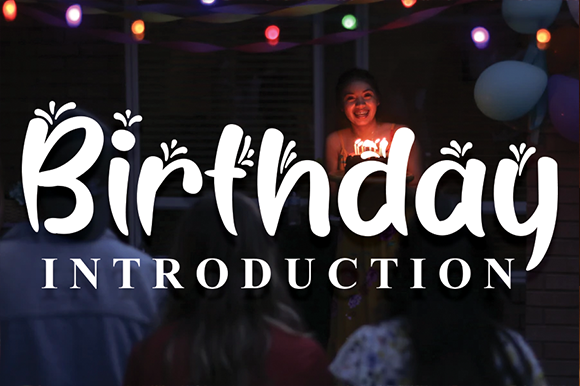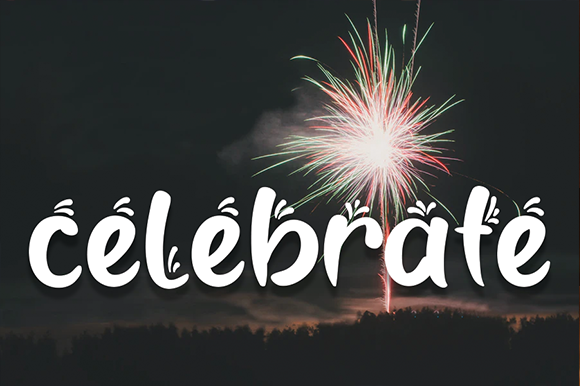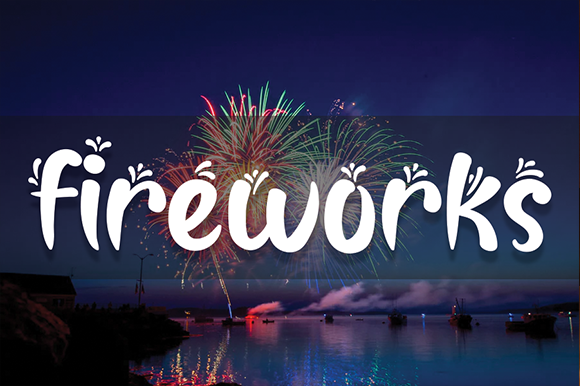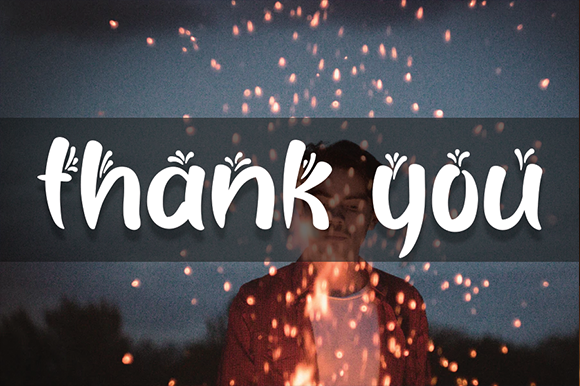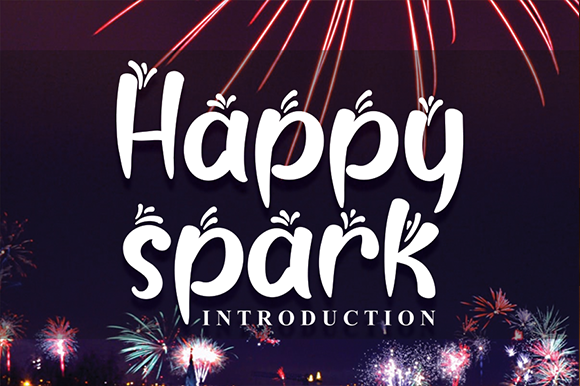
Introducing Happy Spark Font: The Ultimate Display Font for Creative Standouts
Are you tired of using the same old fonts for your creative projects? Look no further than Happy Spark Font, a unique and enchanting display font that embodies fun, quirkiness, and authenticity. With Happy Spark, you can turn any creative idea into a true standout that captures attention and leaves a lasting impression.
The Personality of Happy Spark Font
Happy Spark Font is not just a font – it’s a personality. It’s a way to express your creativity and add a touch of whimsy to your designs. This font is perfect for designers and crafters who want to add a dash of fun and playfulness to their projects. Whether you’re working on a branding project, a poster, or a social media graphic, Happy Spark Font is sure to bring a smile to your audience’s faces.
What Makes Happy Spark Font So Special?
So, what sets Happy Spark Font apart from other display fonts? Here are just a few features that make it truly special:
- Unique Character Set: Happy Spark Font features a unique character set that’s full of personality. Each letter is carefully crafted to bring a sense of fun and quirkiness to your designs.
- Enchanting Display Font: This font is designed to be a true display font, making it perfect for headlines, titles, and other attention-grabbing elements.
- Authentic Feel: Happy Spark Font has an authentic feel that’s hard to find in other fonts. It’s perfect for designers who want to add a touch of handmade charm to their projects.
Happy Spark Font is a versatile font that’s perfect for a wide range of creative projects. Here are just a few ways designers and crafters can use this amazing font:
- Branding Projects: Use Happy Spark Font to create eye-catching logos, business cards, and other branding materials that showcase your personality.
- Posters and Flyers: Add a touch of fun and quirkiness to your posters and flyers with Happy Spark Font.
- Social Media Graphics: Use Happy Spark Font to create engaging social media graphics that stand out from the crowd.
- Crafting Projects: Happy Spark Font is also perfect for crafters who want to add a personal touch to their projects, such as handmade cards, scrapbooking, and other paper crafts.
Tips for Using Happy Spark Font
Here are a few tips for getting the most out of Happy Spark Font:
- Use it as a Headline Font: Happy Spark Font is designed to be a display font, so use it to create attention-grabbing headlines and titles.
- Experiment with Colors: Happy Spark Font looks great in a wide range of colors, so don’t be afraid to experiment and find the perfect color for your project.
- Pair it with Other Fonts: Happy Spark Font pairs well with a wide range of other fonts, so feel free to get creative and find the perfect font combination for your project.